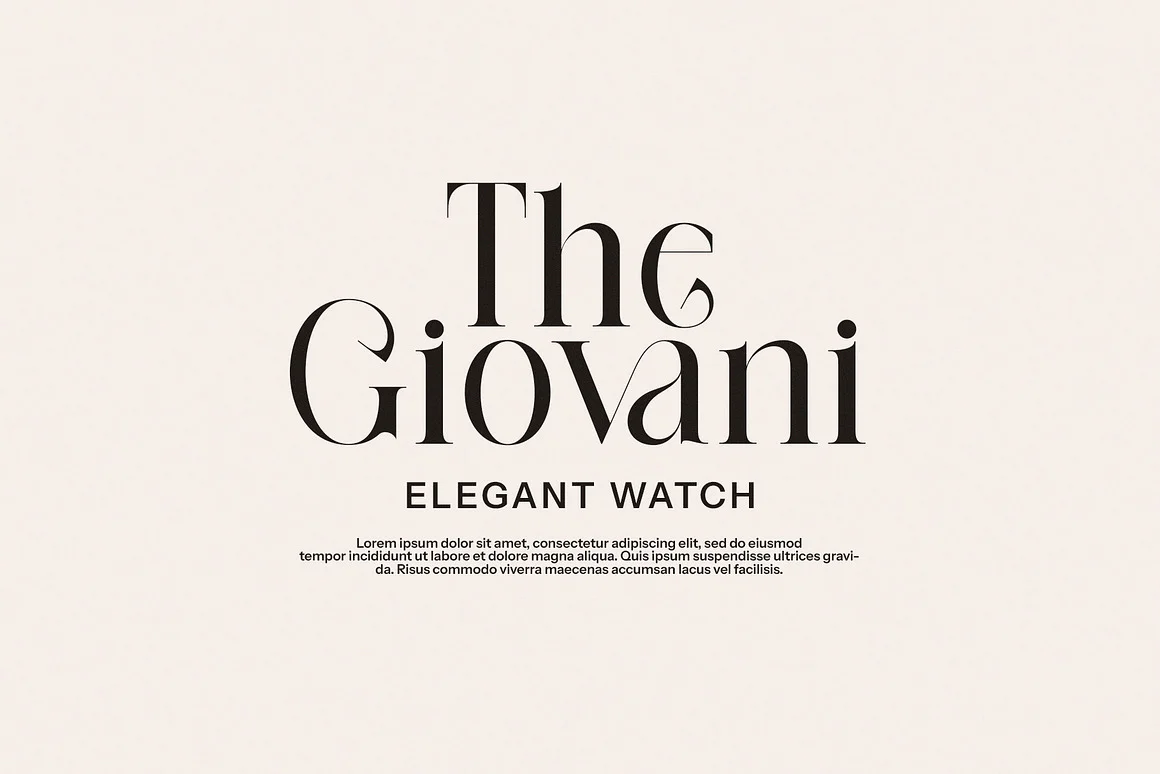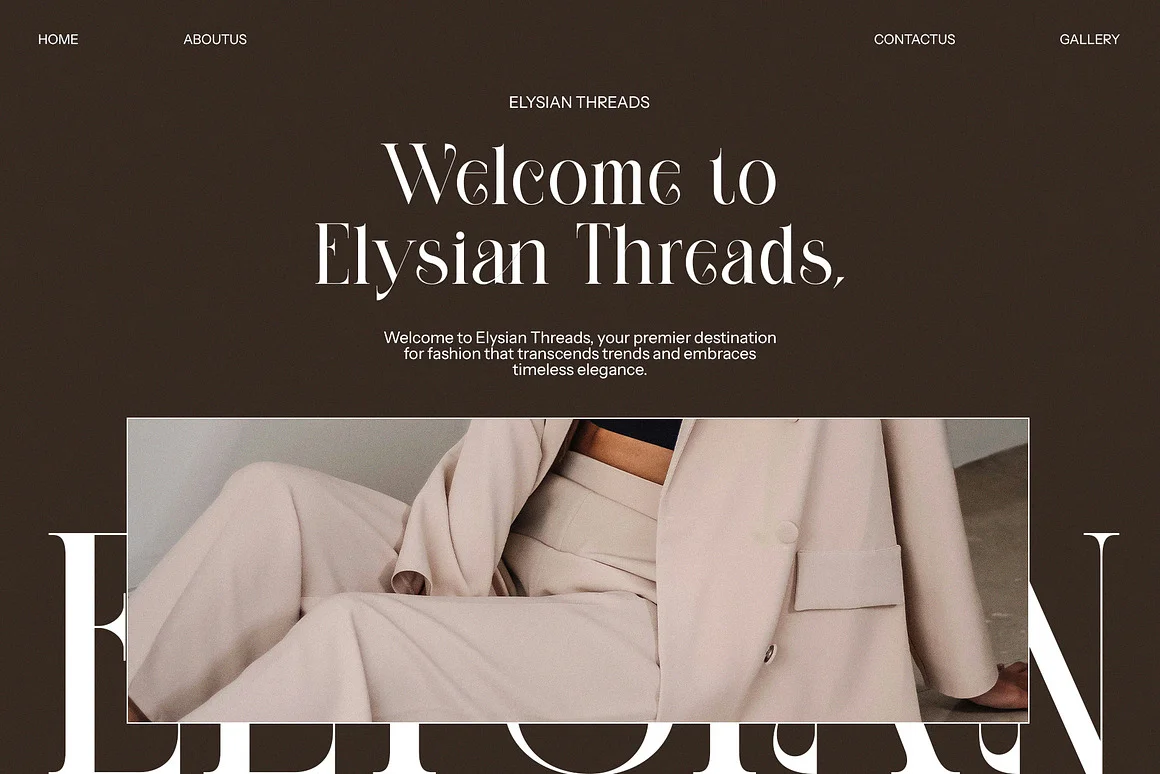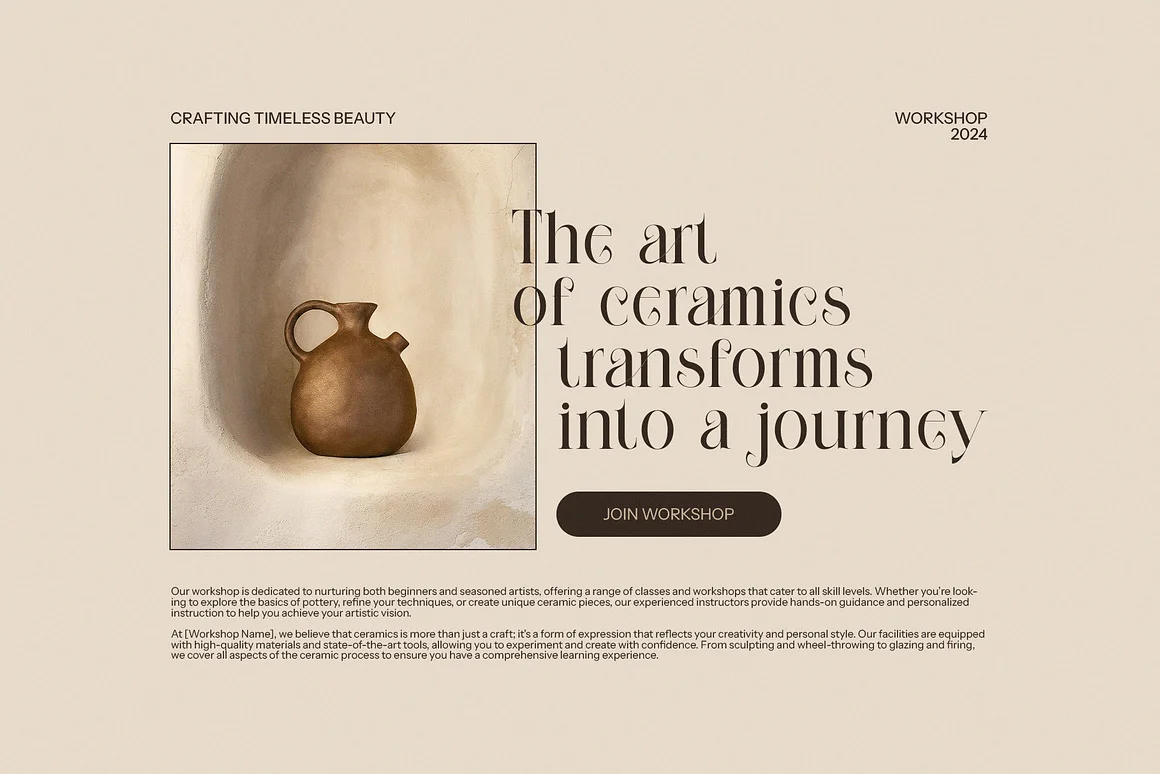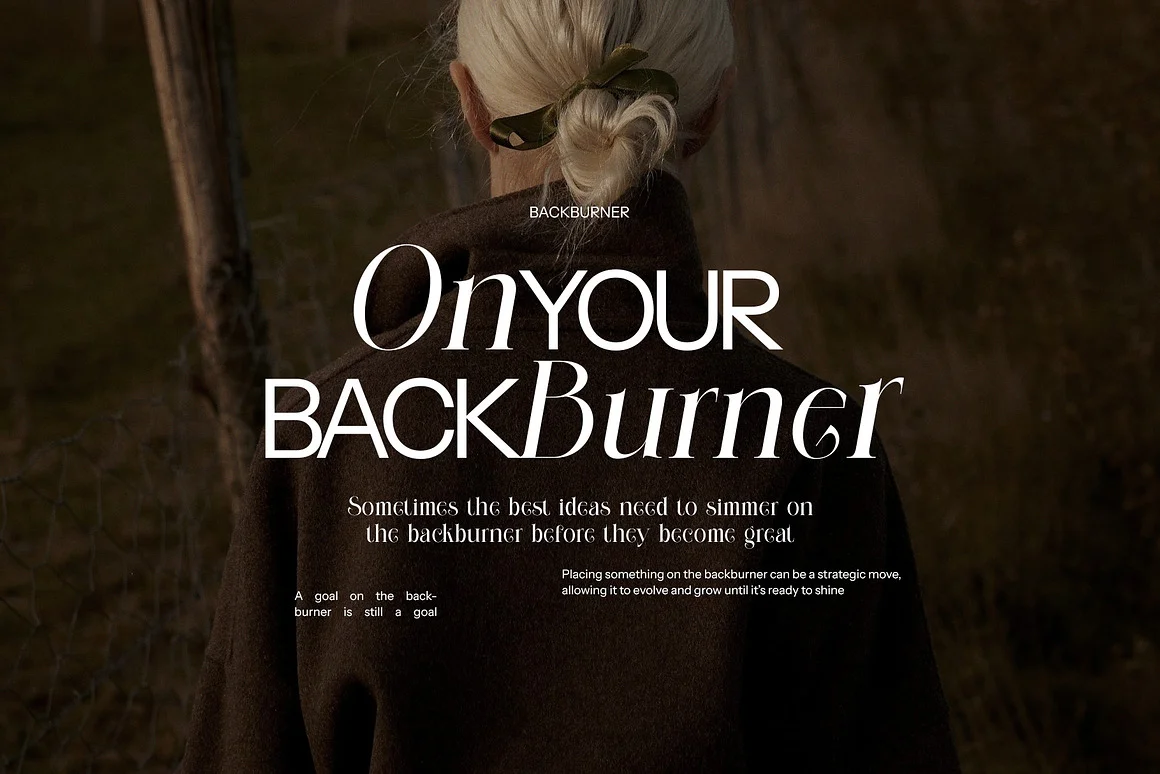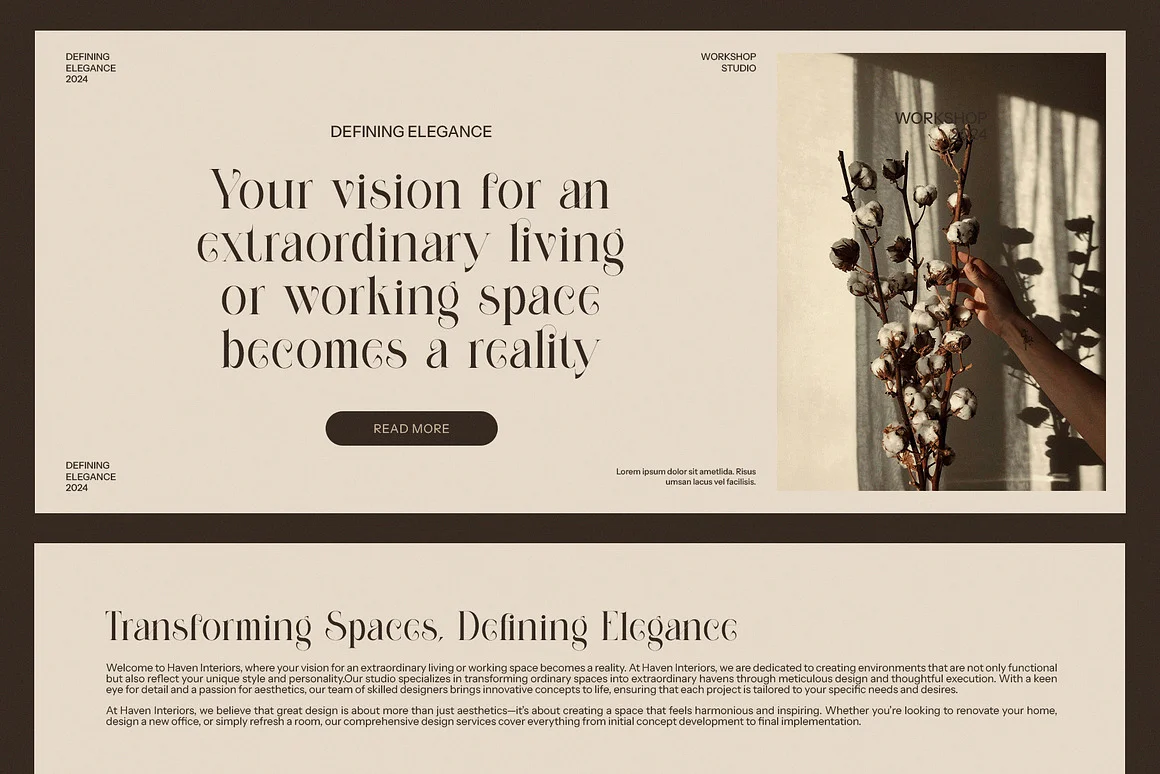
Maglin Modern Serif Font
When a design brief calls for both the kind of restraint that lets content lead and immediate visual impact, type choices matter — Maglin Modern Serif answers that brief. The typeface brings a classically grounded sensibility to a broad range of creative disciplines, with consistent type colour across continuous text that holds up whether the work is print-first or screen-first.
In practice, Maglin Modern Serif proves particularly effective for annual reports, premium packaging, web design, logo design, product labels. Designers reaching for it find that the type decisions feel resolved rather than laboured — a useful quality when client timelines are tight.
The range of applications extends to brand identity systems, social media graphics, advertising campaigns, classical music programmes. That breadth is deliberate: the proportions and spacing were stress-tested across a wide range of mock briefs before the typeface was finalised.
The serif terminals are cut at a slight angle, referencing the calligraphic origins of Latin type while maintaining the crispness demanded by modern print reproduction. Optical sizing adjustments ensure the face performs equally at 8pt body copy and 96pt headlines.
Art directors commissioning type-led campaigns find Maglin Modern Serif a reliable choice for projects that demand both personality and restraint. The design avoids the self-conscious quirkiness that dates quickly, settling instead for considered distinctiveness that holds up over time.